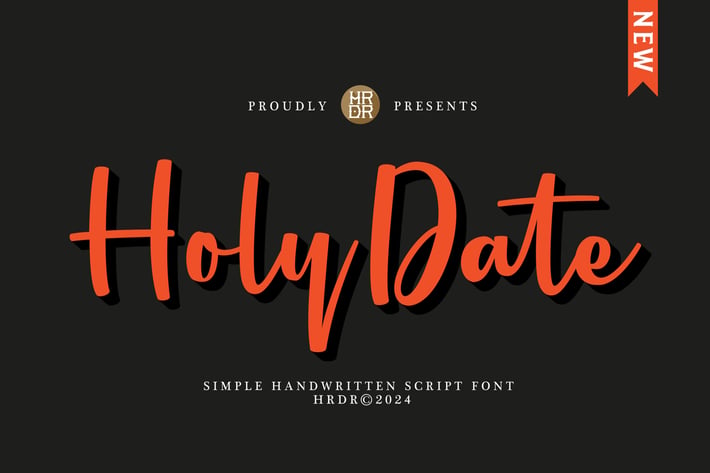
Holy Date - Elegant Handwritten Font
Holy Date Font is a Elegant and Simple Handwritten Font.
It's perfect for branding, wedding invitations, photography, Neon Sign, bloggers, logos, greeting cards, Logo, Quotes and
more.